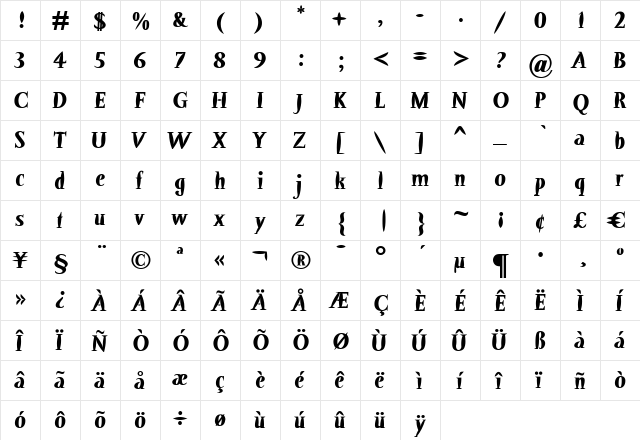
Barracuda Bold Regular
Design Context for Barracuda Bold Typeface
Barracuda Bold is a composed and adaptable typeface that performs quietly and consistently across a wide range of design contexts. The heavy weight commands attention and anchors typographic hierarchies.